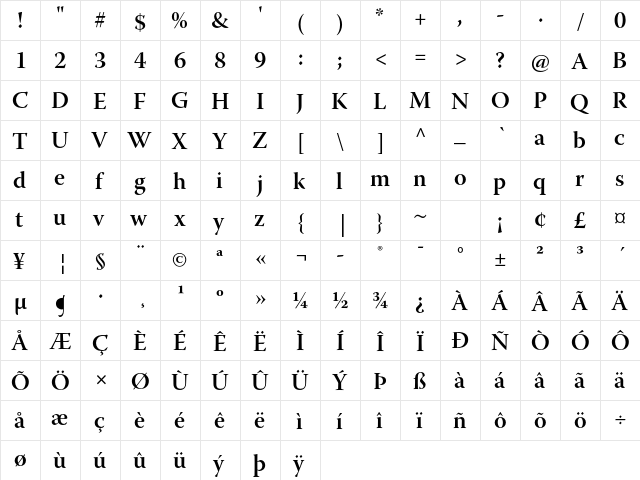
Warnock Pro Semibold Subhead
| Designer | Robert Slimbach |
Design Context for Warnock Pro Typeface
Warnock Pro is a composed and adaptable typeface that performs quietly and consistently across a wide range of design contexts. The heavy weight commands attention and anchors typographic hierarchies.